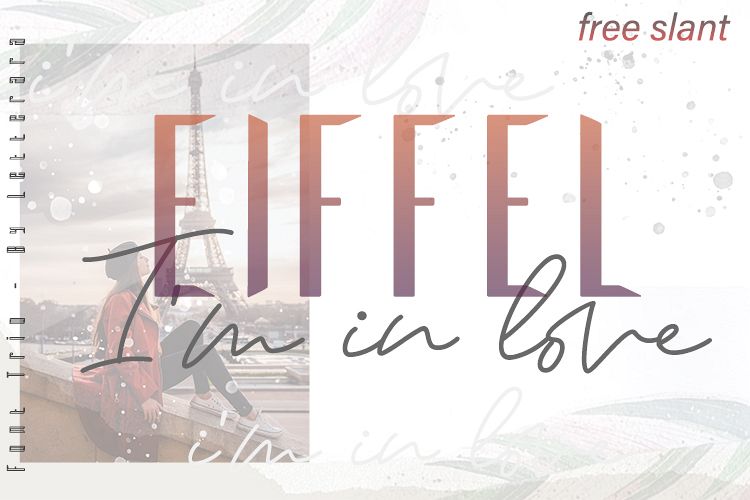
Eiffel in
love  is a beautiful high fashion font
trio, consists of 2 sans fonts and 1 script font. with a strong modern style
sans and beautiful script, this is perfect for branding, logos, masterheads and, printed quotes, badge,
insignia, packaging, headline, poster, t-shirt/apparel, greeting card and many more.